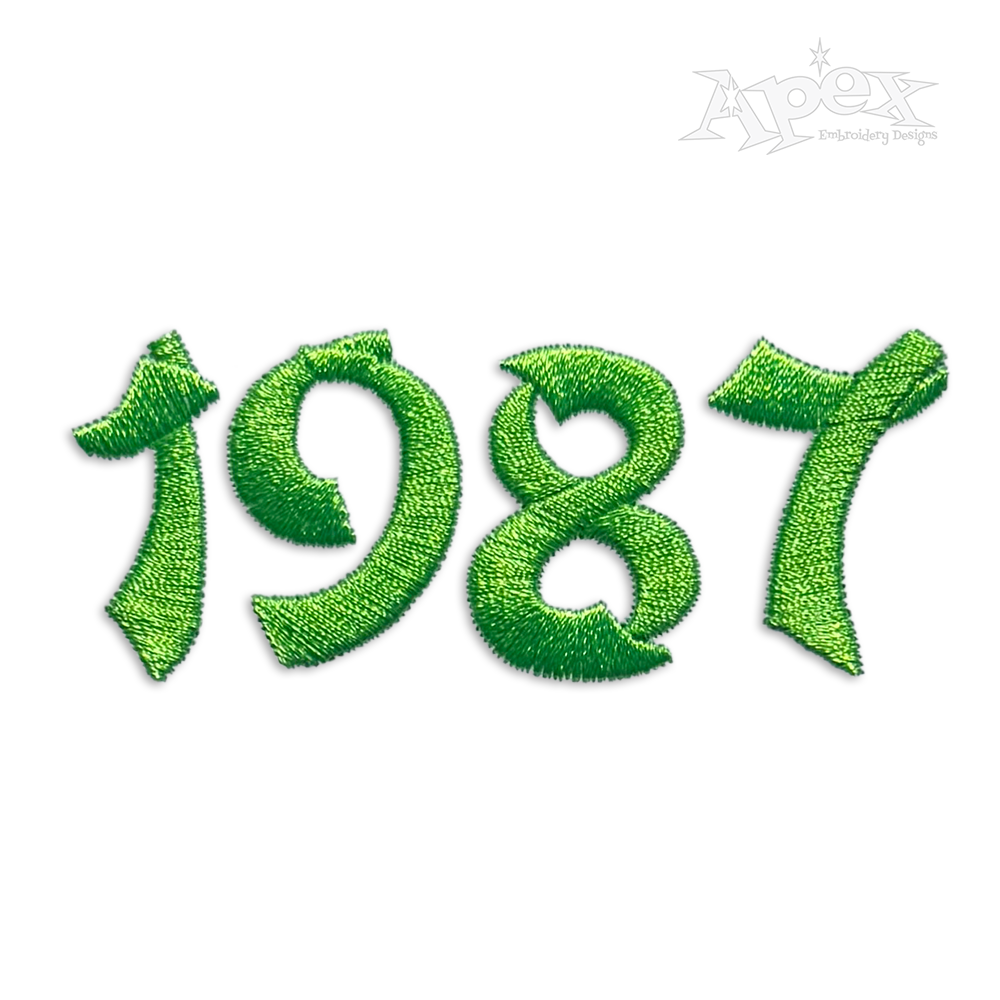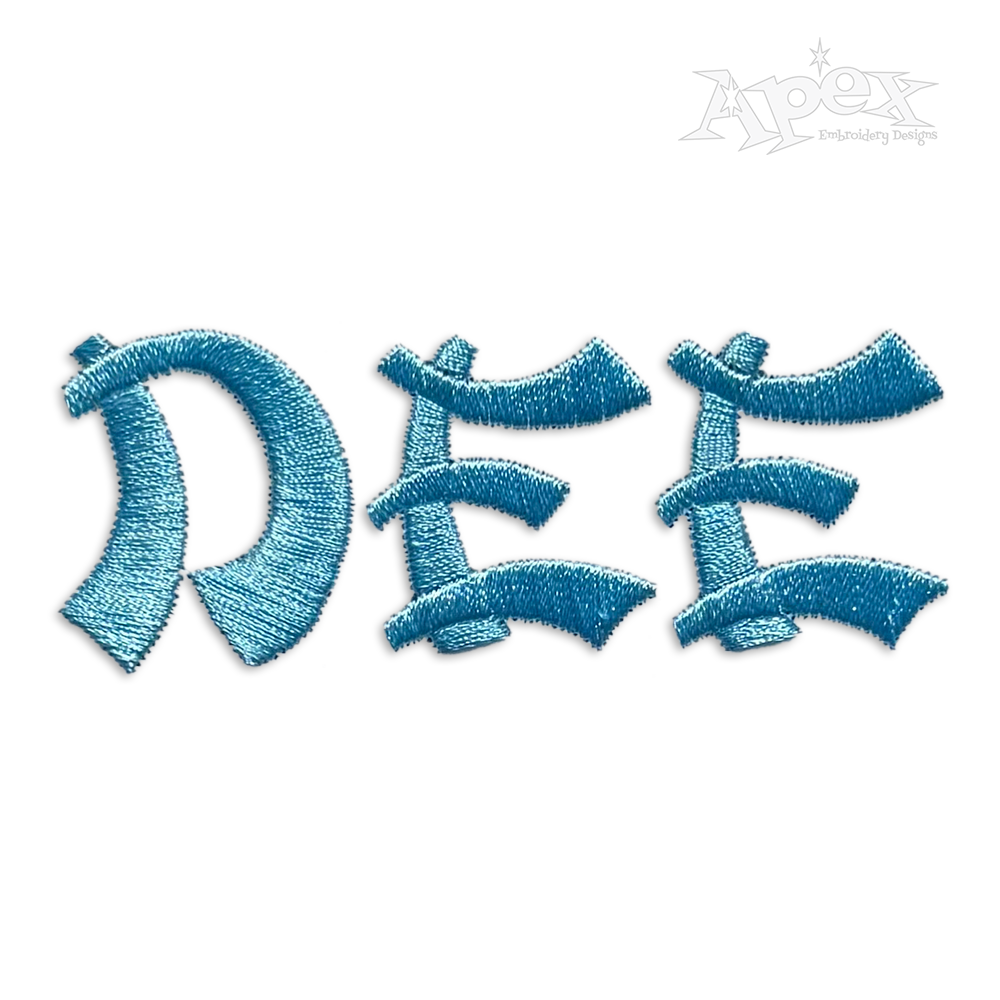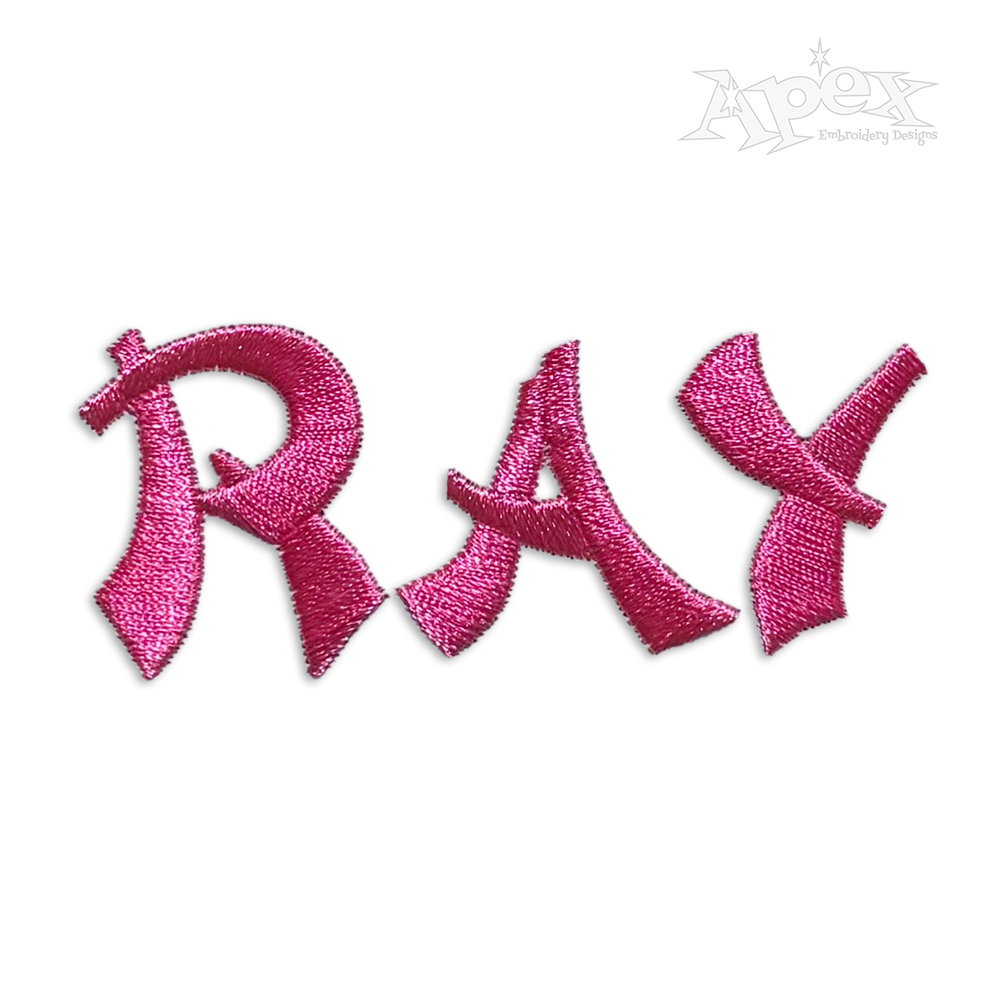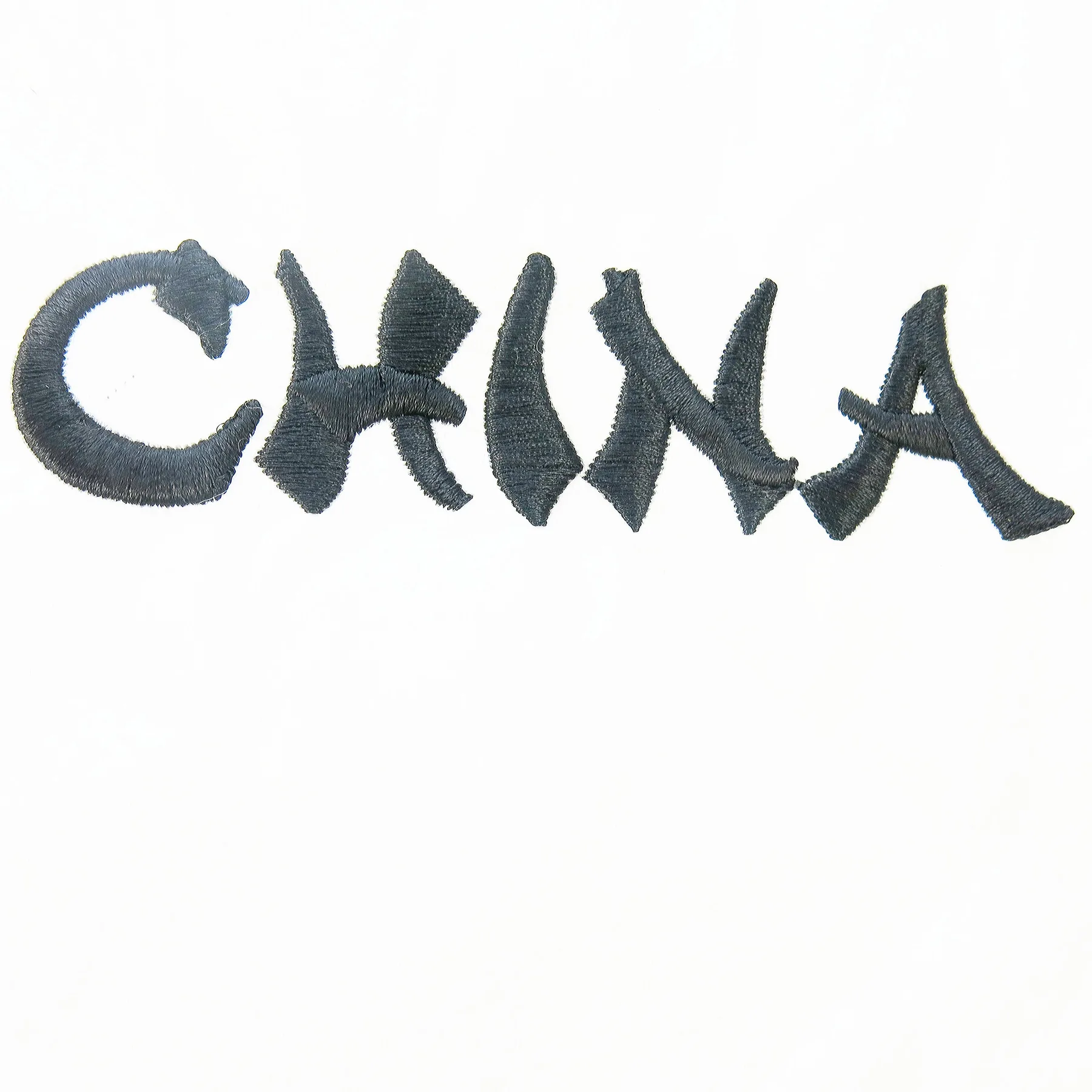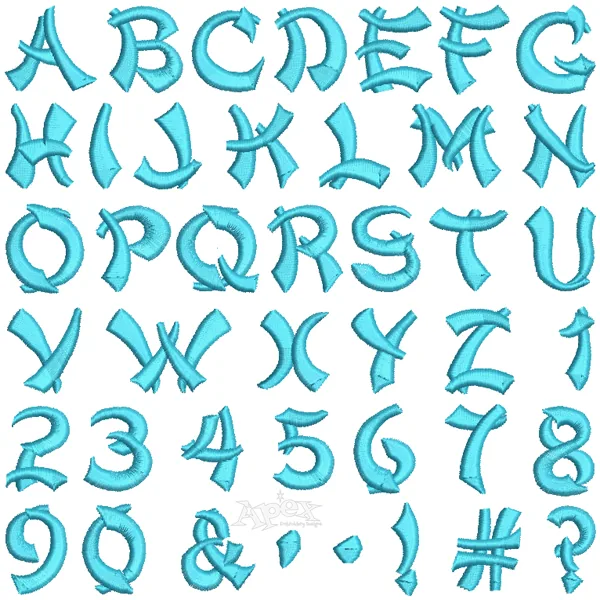
China Embroidery Font
China Embroidery Font captures spirit of master calligraphers, turning thread into expressive brush strokes. Each glyph honors ancient ink traditions through dynamic flared terminals, sweeping crossbars, rich dimensional density. Digitized carefully for embroidery machines, design brings bespoke resort wear, luxury table linens, heirloom embroidery, personalized gifting projects alive with balanced drama, handcrafted poise.
Project Ideas for China
Expressive lettering shines across diverse fabric weights and formal occasions:
- Bespoke Resort Wear: Embroider left-chest insignias or kimono collars on linen shirts, silk jackets, robes.
- Luxury Table Linens: Stitch corner monograms on crisp linen cocktail napkins, dinner runners, banquet placemats.
- Culinary & Martial Arts Uniforms: Personalize chef coats, martial arts belts, doboks, heavy gi jackets.
- Heirloom Bedding & Bath: Add bold statement monograms to duvet covers, pillow shams, waffle-weave spa towels.
- Personalized Gifting: Accent structured canvas tote bags, custom aprons, weekend duffels with striking initial monograms.
- Corner Diagonal: Angle 45 degrees across cocktail napkin corners or handkerchief borders.
- Center Chest: Place 3.5 to 4 inches down from collar on martial arts uniforms, polos, chef tunics.
- Cuff & Hem: Position single monogram initial along sleeve cuff or robe hemline for discreet bespoke touch.
- Pocket & Flap: Center lettering directly over breast pocket or tote bag exterior slip pocket.
China Craft & Letterform Details
Digitizer bench notes reveal deliberate stitch choreography. Brush-stroke calligraphy demands authentic thickness variation. To preserve motion of wet horsehair brush, digitizing process incorporates smooth satin stitch alphabet pathways with precise entry points. Flared serifs push out boldly, tapering smoothly across horizontal bars. Curved columns of letters like D, O, 8 feature gradual angle shifts, preventing thread bunching while catching light across rayon or polyester filaments. Stitch density holds crisp lines over textured fabric, ensuring clean borders without density puckering. Result balances oriental heritage aesthetics with high-performance machine stitching.